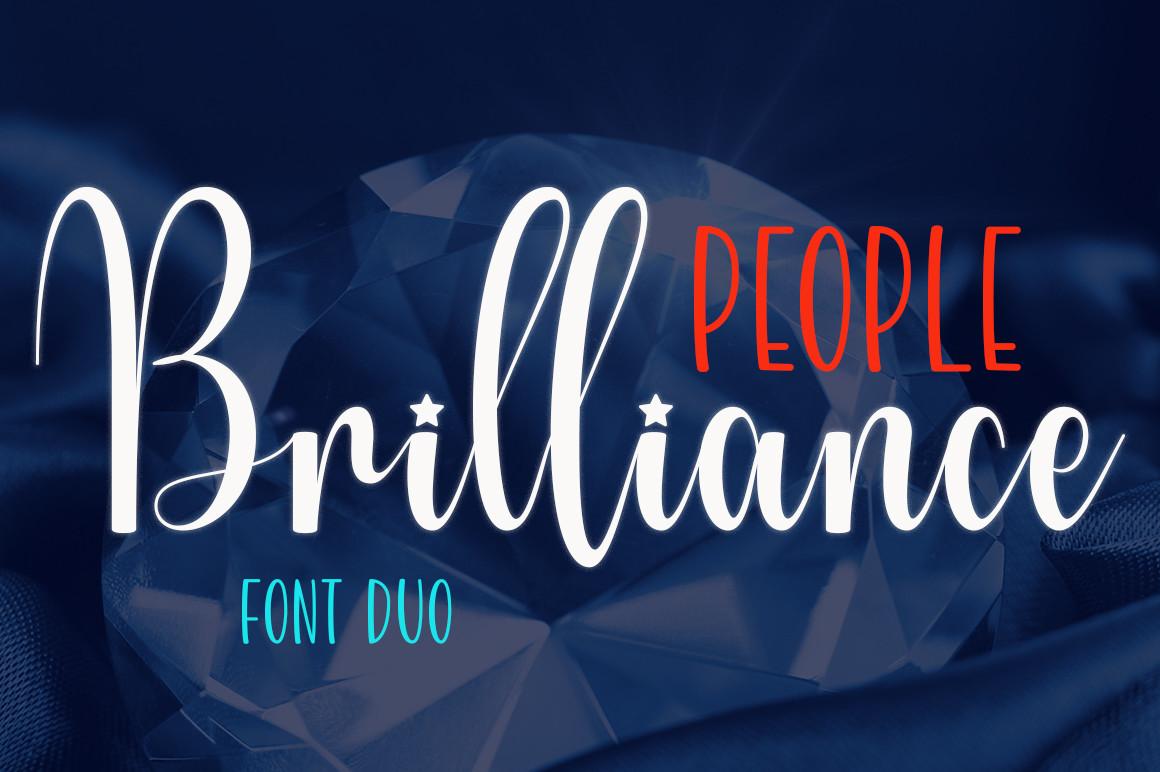
Brilliance People Font Description
Brilliance People is a spectacular duo font (sans serif and script). Incredibly versatile, this font fits a wide pool of designs, elevating them to the highest levels. This font is PUA encoded which means you can access all of the glyphs and swashes with ease!